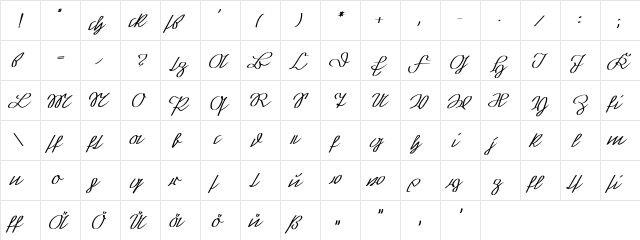
GrovaterKurrent Regular
Design Context for GrovaterKurrent Typeface
GrovaterKurrent is a composed and adaptable typeface that performs quietly and consistently across a wide range of design contexts.